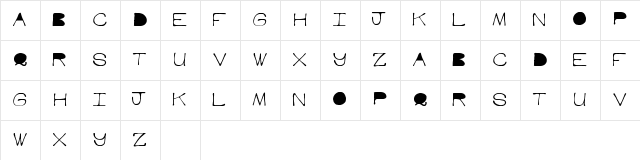
HotBone Regular
Design Context for HotBone Typeface
HotBone is a composed and adaptable typeface that performs quietly and consistently across a wide range of design contexts.